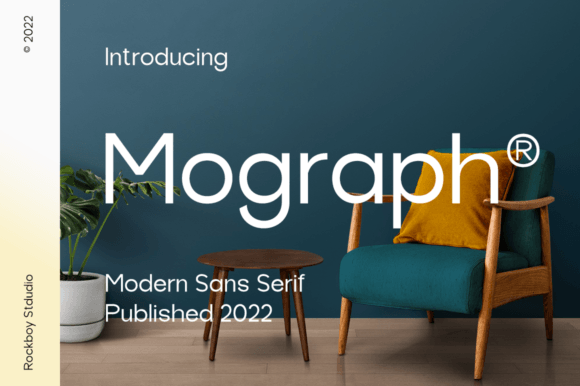
Mograph Font is the perfect font for those looking to create eye-catching business flyers. Created by RockboyStudio, this minimal and modern sans serif font is a must-have for any creative project. Mograph's clean lines and contemporary feel make it incredibly versatile, allowing it to be used in a wide range of design projects.
If you're looking to add a touch of professionalism to your flyers, Mograph is the font for you. Its sleek and sophisticated design will make your flyers stand out from the competition. Whether you're advertising a new business or promoting a special event, Mograph is sure to make a lasting impression on your audience.
But Mograph isn't just for business flyers. Its versatility makes it the perfect font for any design project. Use it for your next website design, logo creation, or social media graphics. Mograph's clean and modern aesthetic will elevate any project to the next level.
Mograph is also incredibly easy to use. Its simple design means that it can be matched with a large set of projects, making it a great choice for those who are short on time. Whether you're a beginner or a seasoned designer, Mograph is the perfect font for all your creative needs.